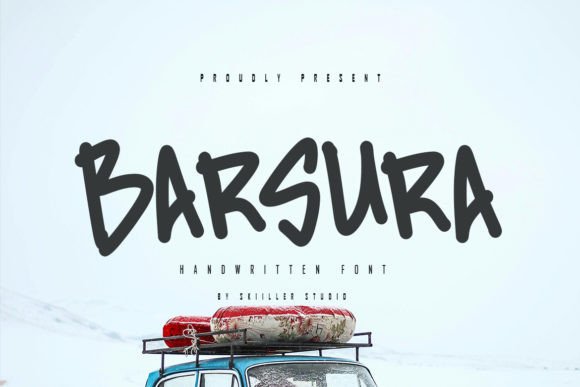
Introducing Barsura Font: The Perfect Handwritten Font for Fun Projects
Are you looking for a font that can add a touch of fun and playfulness to your projects? Look no further than Barsura Font, a beautiful handwritten font that is perfect for a variety of applications. In this article, we’ll take a closer look at Barsura Font, its features, and how you can use it to take your projects to the next level.
What is Barsura Font?
Barsura Font is a handwritten font that is designed to be fun, playful, and engaging. It features a unique and distinctive style that is sure to grab attention and add a touch of personality to your projects. Whether you’re working on a children’s party invitation, a cute quote, or any other fun-related project, Barsura Font is the perfect choice.
Ideas for Using Barsura Font
Barsura Font is a versatile font that can be used in a variety of projects, including:
- Children’s party invitations and decorations
- Cute quotes and social media posts
- Fun and playful graphics, such as posters and flyers
- Personalized gifts, such as mugs and t-shirts
- Blog posts and articles that require a touch of whimsy
Benefits of Using Barsura Font
There are many benefits to using Barsura Font in your projects, including:
- Unique and distinctive style: Barsura Font features a unique and distinctive style that is sure to grab attention and add a touch of personality to your projects.
- Easy to read: Despite its playful style, Barsura Font is easy to read and understand, making it perfect for use in a variety of applications.
- Fun and engaging: Barsura Font is designed to be fun and engaging, making it perfect for projects that require a touch of whimsy and playfulness.
- High-quality design: Barsura Font is designed to high standards, ensuring that it looks great in a variety of contexts and applications.
Tips and Tricks for Getting the Most Out of Barsura Font
Here are a few tips and tricks for getting the most out of Barsura Font:
- Experiment with different colors: Barsura Font looks great in a variety of colors, so don’t be afraid to experiment and find the perfect hue for your project.
- Use it with other fonts: Barsura Font can be paired with other fonts to create a unique and interesting look.
- Play with font sizes: Barsura Font can be used at a variety of font sizes, from large and bold to small and delicate.
In conclusion, Barsura Font is a beautiful handwritten font that is perfect for a variety of fun and playful projects. With its unique and distinctive style, ease of use, and high-quality design, Barsura Font is sure to become a favorite among designers and crafters. So why wait? Download Barsura Font now and start creating!